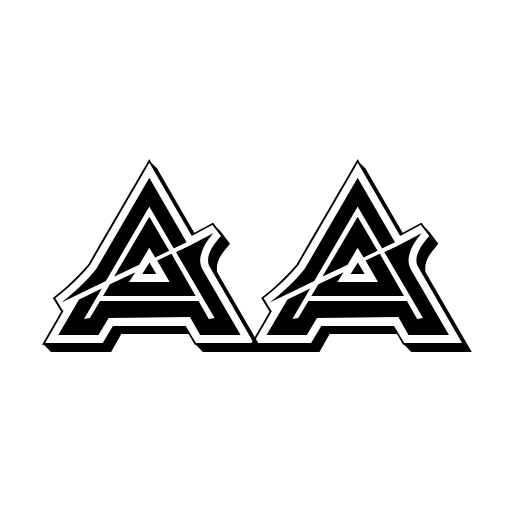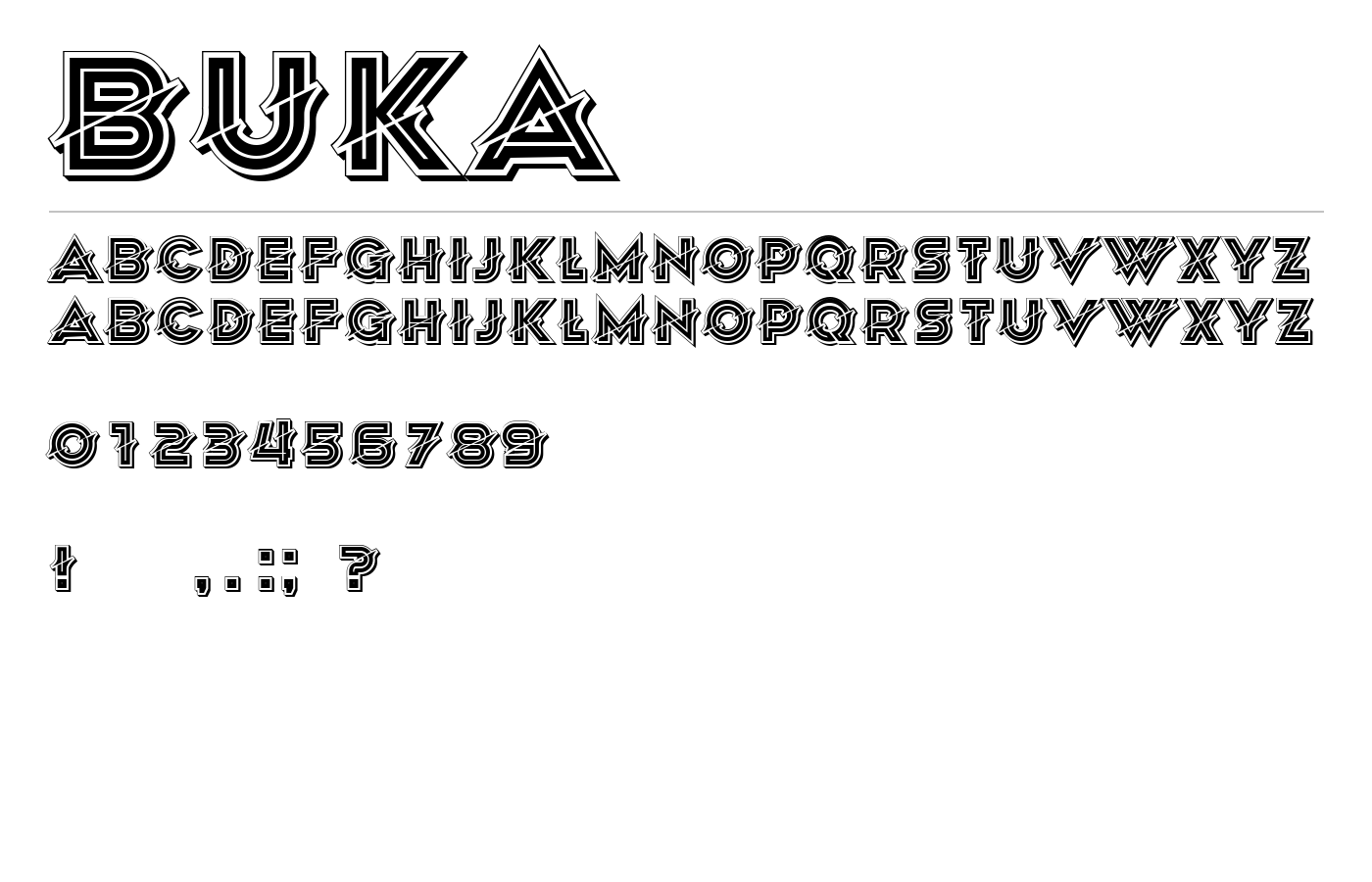
Buka Font is a bold, decorative sans serif typeface characterized by its layered, geometric structure and sharp, angular details that create a dynamic, 3D effect. Its uppercase-only design combined with intricate line work lends it a playful yet strong personality, making it perfect for eye-catching headlines, logos, and creative branding that seek a modern and energetic vibe. This font works especially well in display settings where its unique style can stand out and add visual interest.
Buka Font
About Buka Font